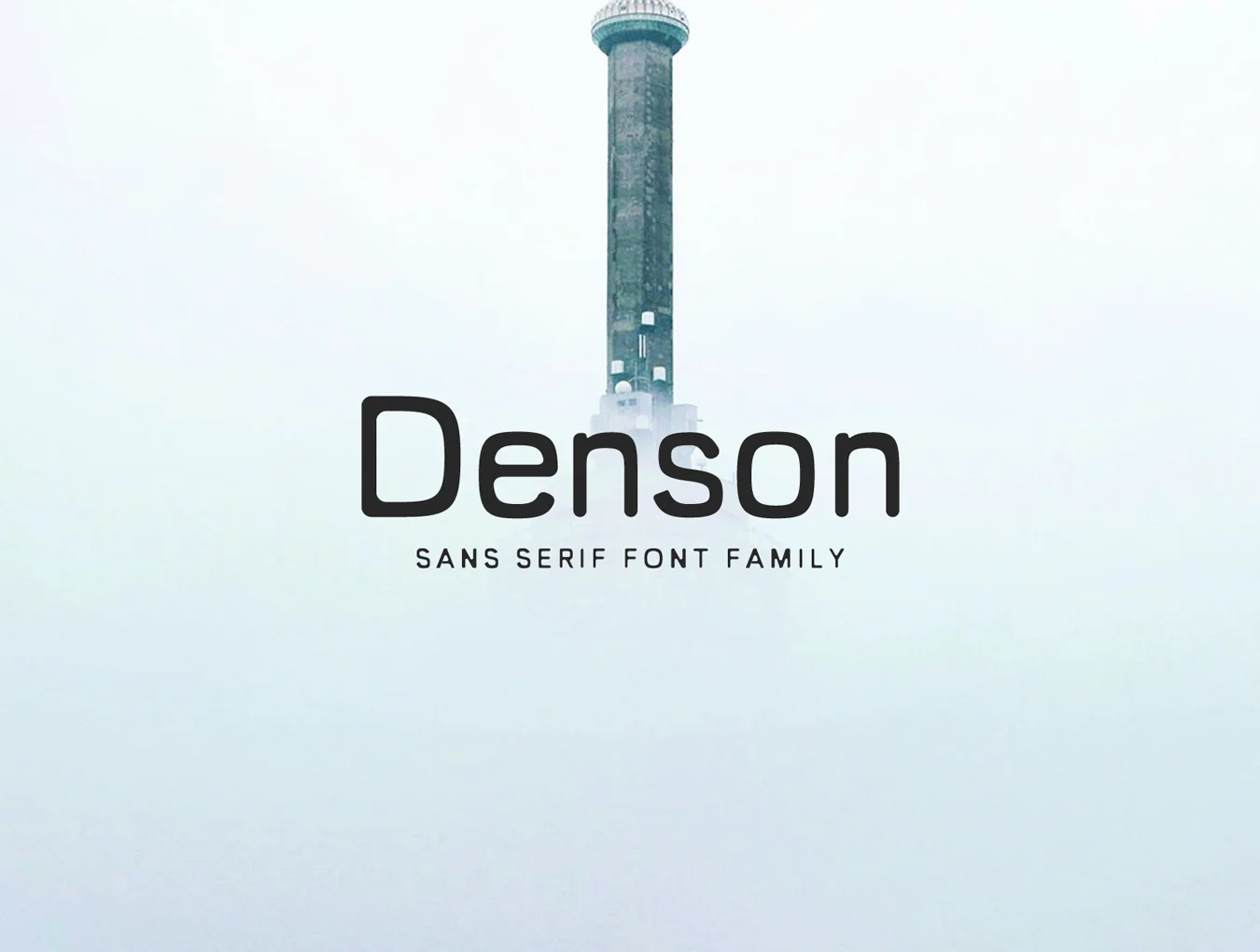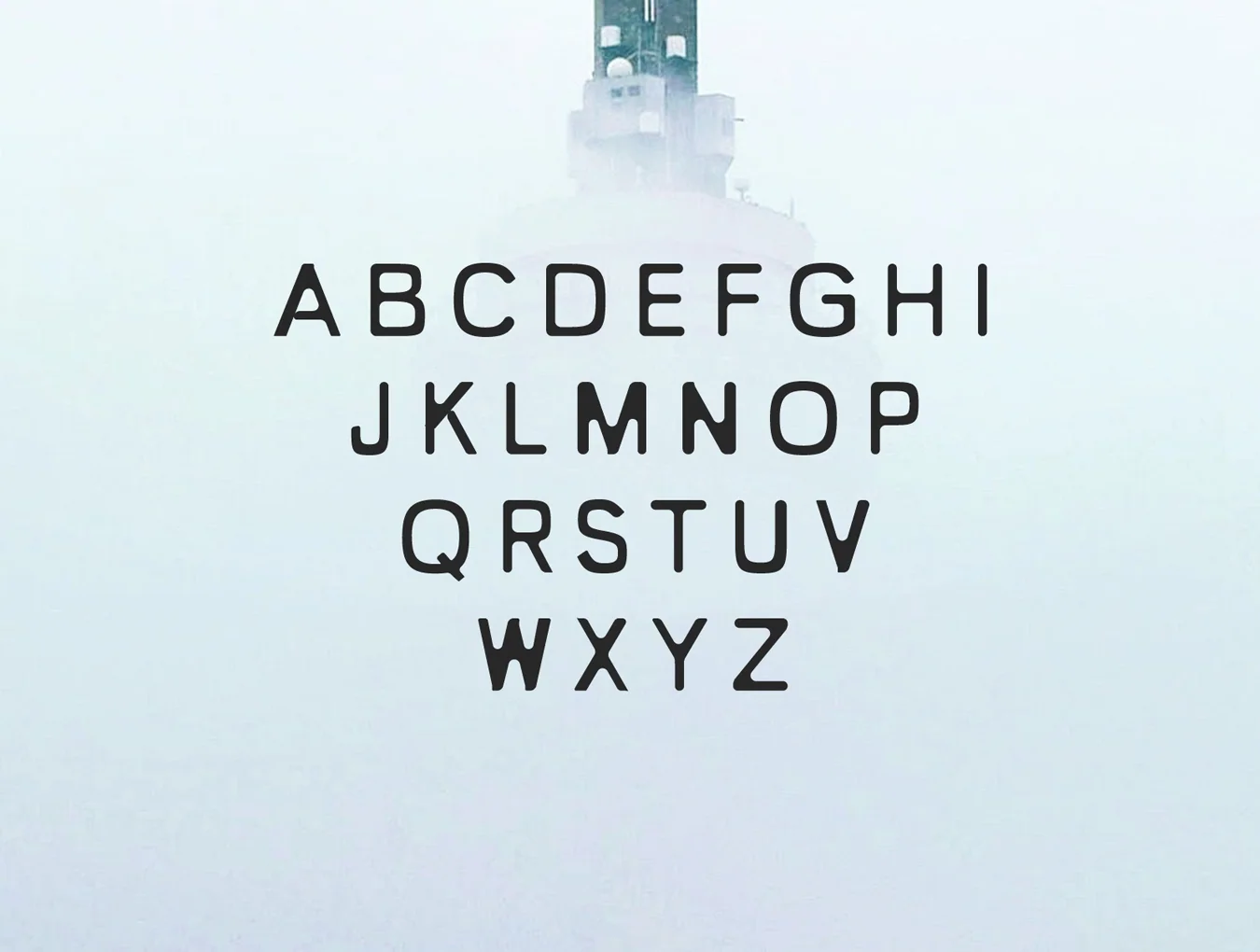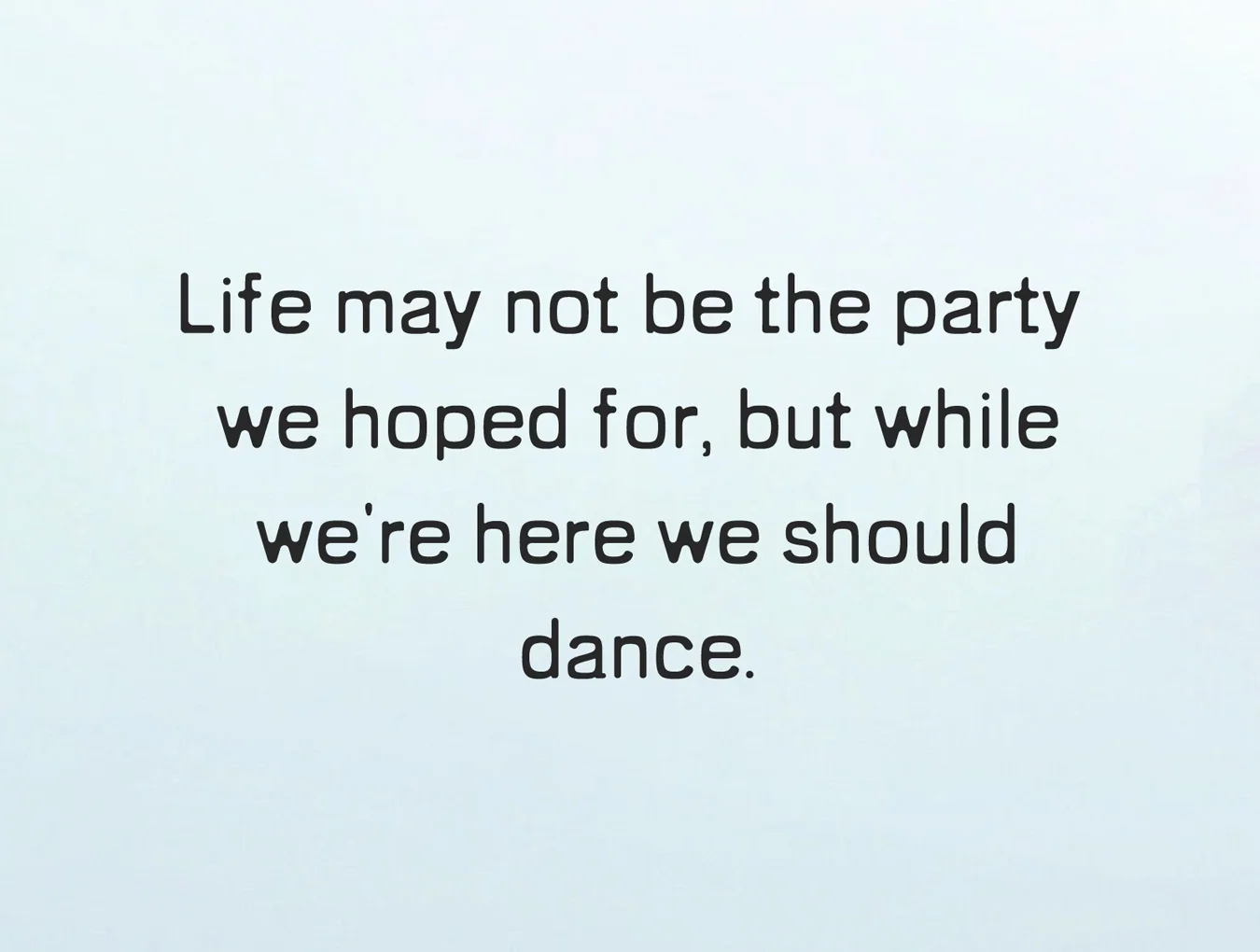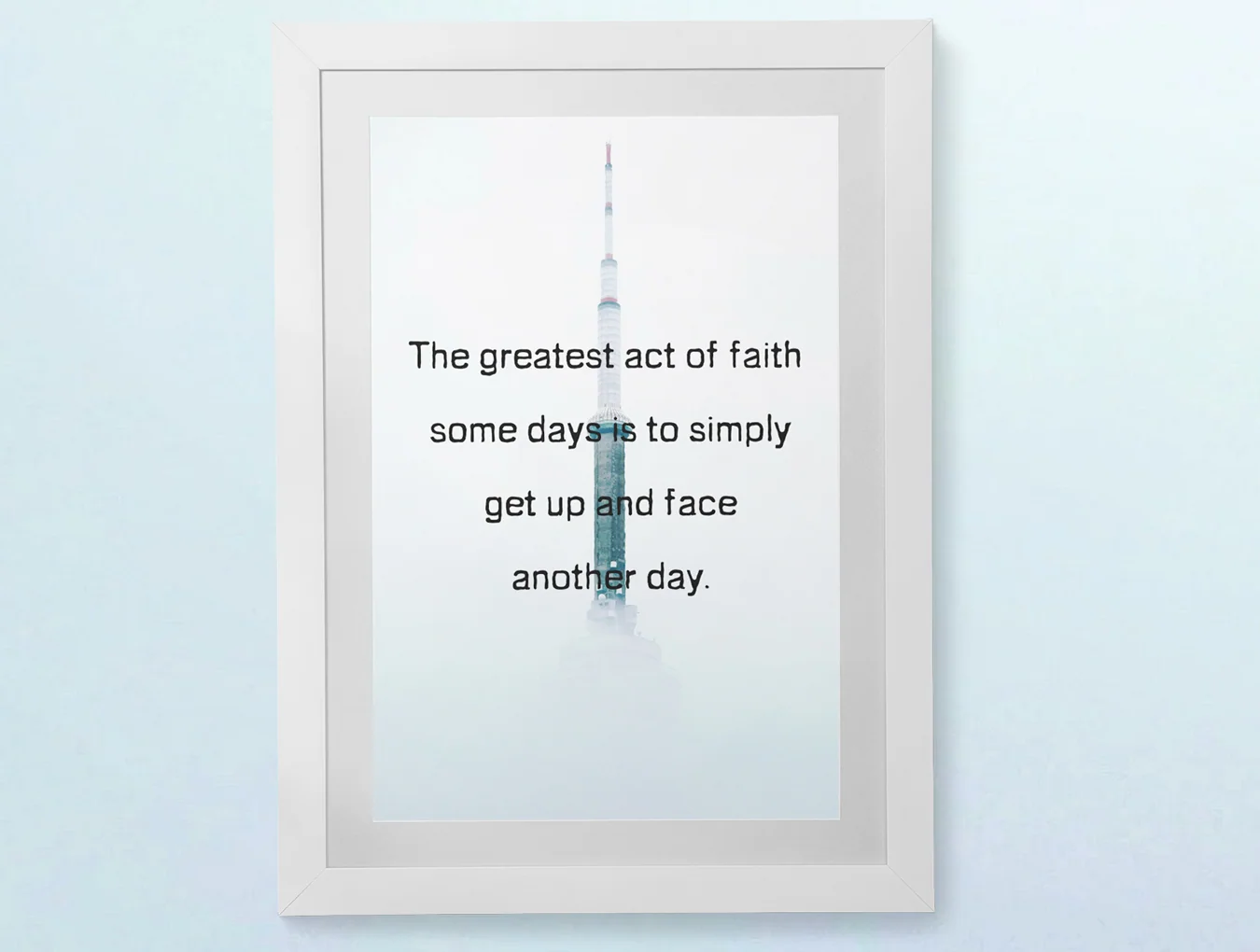
Denson Sans Font Family
Denson Sans Serif typeface family with 3 weights.
Sans-serif font style
303 included glyphs
Regular, Thin and Bold styles
Denson is a distinctive rounded sans serif font family with three weights. Ideal for logos, text, presentations, posters, magazines, notices, titles, name cards, web layouts, invitations, headers, branding, and business projects. It shines in spaced all caps for a refined style or in mixed case for a timeless feel.